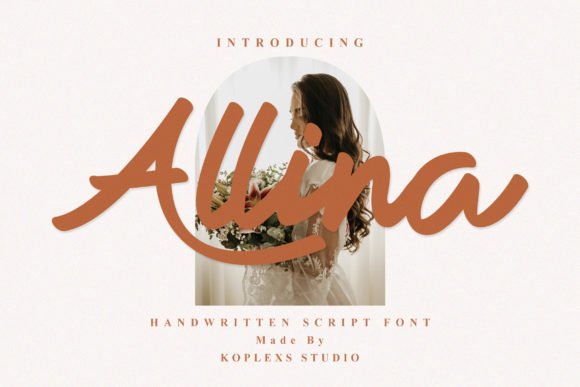
The Perfect Brush Stroke for Your Next Design
There’s something special about the moment when a design concept finally comes to life. The rush of excitement, the thrill of creation – it’s a feeling that’s hard to beat. And for designers, that moment is often sparked by the perfect combination of typography and creativity. For those who crave a more elegant, handwritten touch, the Allina Font is about to become your new best friend.
With its flowing, connected strokes and timeless charm, the Allina Font is the perfect choice for designers who want to add a touch of sophistication to their projects. Whether you’re working on a wedding invitation, a brand identity, or a social media campaign, this font is sure to elevate your design game. And with its PUA encoding, you’ll have access to all the glyphs and swashes you need to create truly spectacular designs.
Allina Font Key Features
- Unique Characteristics: Allina Font features a unique blend of modern and vintage elements, with distinctive letterforms and flourishes that add a touch of elegance to any design.
Review of Allina Font
Overall, I’m quite impressed with the Allina Font, but like any design element, it’s not without its flaws. Let’s dive into what works well and what doesn’t.
- Unique Character: The Allina Font has a distinct, elegant feel to it. Its unique character makes it stand out in a crowd, perfect for designers looking to add a touch of sophistication to their projects.
- Legibility: The font is highly legible, even at smaller font sizes. This makes it ideal for body text, headings, and titles.
- Customization: The font offers a range of customization options, including bold, italic, and bold italic styles, which can help designers tailor the font to their specific needs.
- Limited Font Sizes: While the font is legible at smaller sizes, it starts to lose its charm when scaled up to larger font sizes.
- Not Suitable for Headlines: Due to its elegance, the Allina Font may not be the best choice for bold, attention-grabbing headlines.
Overall, I think the Allina Font is a solid choice for designers who want a unique, elegant font for their projects. However, it’s not without its limitations, and designers should carefully consider their needs before choosing this font.
Tips for Getting the Most Out of Allina Font
To get the most out of Allina Font, try using it in conjunction with bold or italic text to create a sense of emphasis. You can also use it in combination with other fonts to create a unique and eye-catching visual style.
Allina Font is a versatile font that can be used in a variety of contexts, including:
– Branding and marketing materials
– Digital design and graphics
– Print design and publications